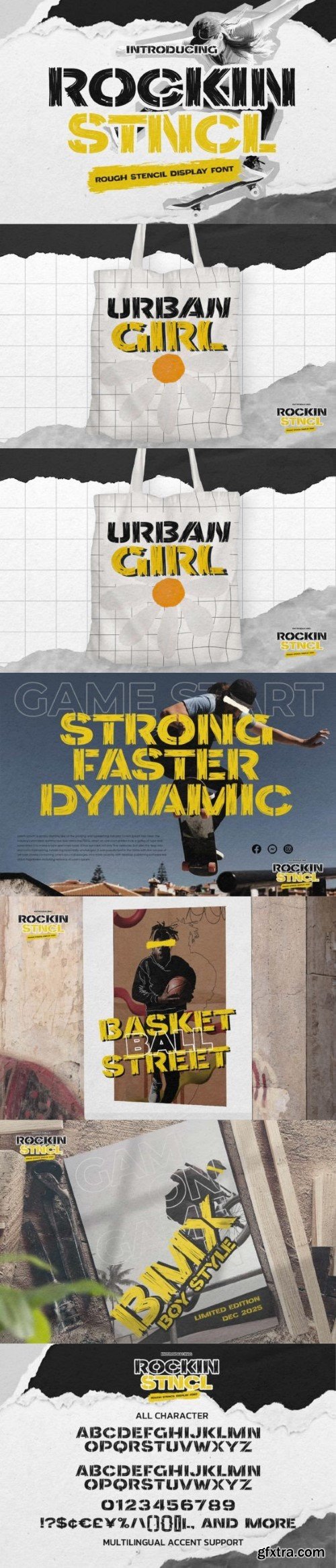
摇滚圣骑士字体
Rockin Stncl is a cool and modern brush display font that brings a unique stencil style to your designs. Its bold and edgy letterforms are perfect for creating eye-catching headlines, logos, and posters. With its urban and street art vibe, Rockin Stncl adds a touch of urban flair and contemporary style to any project. Get ready to make a statement with Rockin Stncl.